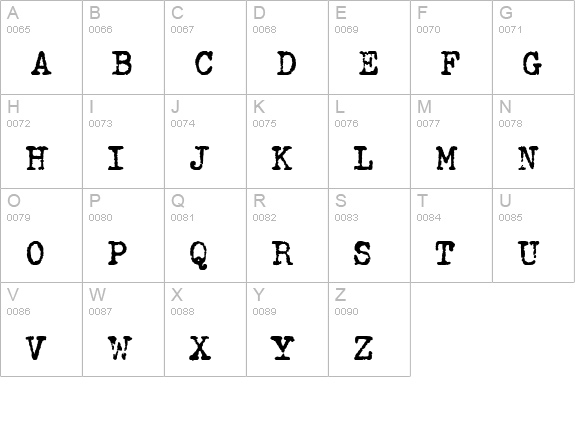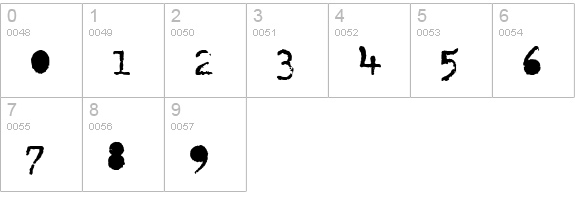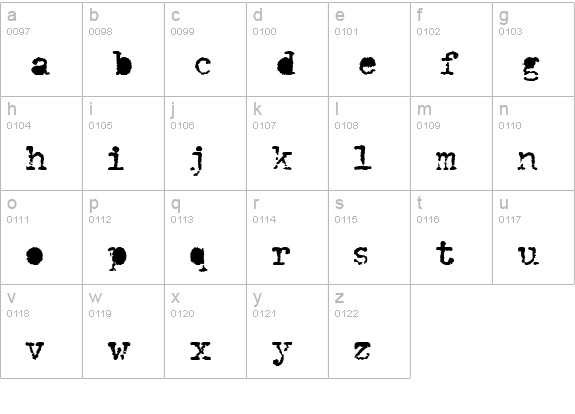
PFDumbOldTypewriter One Bold Font Details
PFDumbOldTypewriter One Bold is a strong, high-contrast variant in the PFDumbOldTypewriter typeface family \xE2\x80\x94 well suited to headlines, attention-grabbing titles, and strong calls-to-action.
Introducing PFDumbOldTypewriter One Bold font - a versatile and dynamic typeface that exudes a sense of nostalgia and charm. This bold and distinctive font is perfect for adding a touch of vintage flair to your designs, whether you're working on a retro-inspired project or looking to make a statement with your typography. With its unique and quirky character, PFDumbOldTypewriter One Bold font is sure to stand out and capture the attention of your audience. Its bold strokes and classic typewriter-inspired design give it a timeless appeal that is both stylish and eye-catching. Best of all, PFDumbOldTypewriter One Bold font is available for free download at FontsMarket.com. So why wait? Add this standout font to your collection today and let your creativity run wild with its endless possibilities.